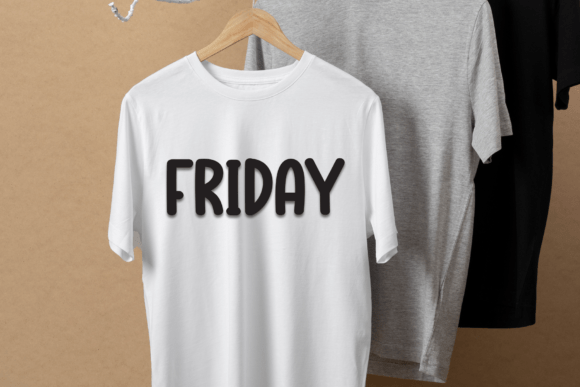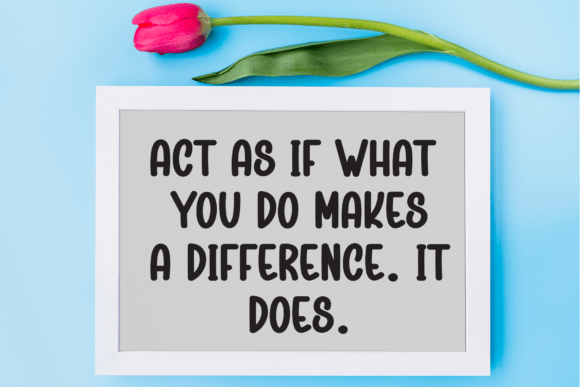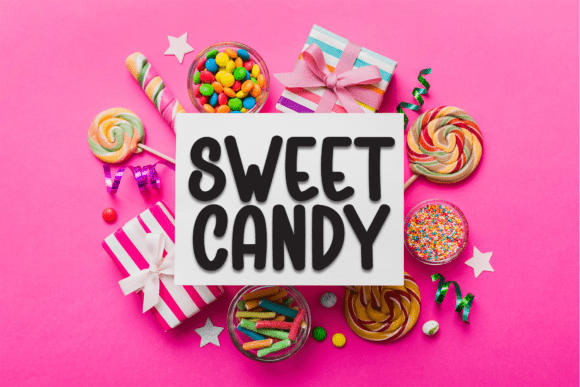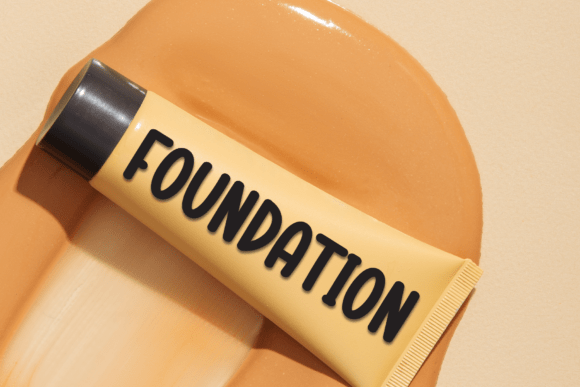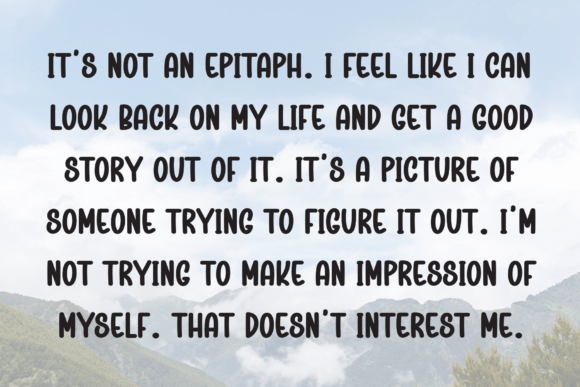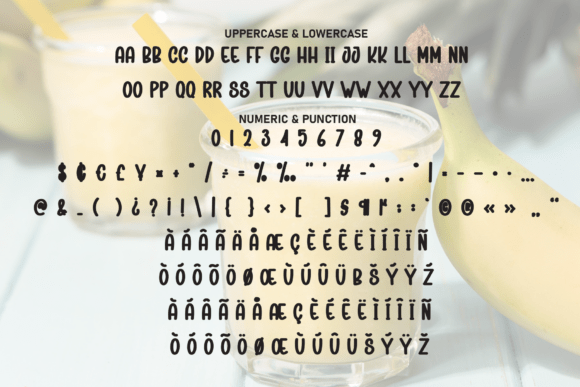
Introducing Banana Juice Font: The Perfect Blend of Warmth and Clarity
Are you tired of using fonts that are too formal or too bland? Look no further than Banana Juice Font, a casual and neat display font designed to bring warmth and clarity to your projects. With its clean structure and approachable style, Banana Juice Font is perfect for branding, headlines, and everyday designs that require a touch of personality.
The Design Behind Banana Juice Font
Banana Juice Font boasts a balanced and harmonious design, with letterforms that are carefully crafted to offer exceptional readability and charm. The font’s clean structure and simple lines make it easy to read, while its approachable style adds a touch of warmth and friendliness to any design. Whether you’re working on a branding project, a website, or a social media graphic, Banana Juice Font is the perfect choice for designers and crafters looking to add a personal touch to their work.
What Makes Banana Juice Font Stand Out
So, what sets Banana Juice Font apart from other display fonts on the market? Here are just a few features that make it a standout choice for designers and crafters:
- Clean and Simple Design: Banana Juice Font features a clean and simple design that makes it easy to read and understand. The font’s straightforward lines and balanced letterforms ensure that your message is conveyed clearly and effectively.
- Approachable Style: The font’s approachable style adds a touch of warmth and friendliness to any design. Whether you’re working on a branding project or a social media graphic, Banana Juice Font helps to create a sense of connection with your audience.
- Exceptional Readability: Banana Juice Font is designed to be highly readable, even at small sizes. This makes it perfect for use in a variety of applications, from website headers to social media graphics.
- Versatility: Banana Juice Font is a versatile font that can be used in a wide range of design applications, from branding and advertising to packaging and web design.
How to Use Banana Juice Font in Your Designs
Banana Juice Font is easy to use and can be incorporated into a wide range of design projects. Here are just a few ideas to get you started:
- Branding and Logos: Use Banana Juice Font to create a warm and inviting brand identity that resonates with your target audience.
- Headlines and Titles: Add a touch of personality to your headlines and titles with Banana Juice Font’s clean and simple design.
- Social Media Graphics: Use Banana Juice Font to create eye-catching social media graphics that grab attention and encourage engagement.
- Web Design: Incorporate Banana Juice Font into your web design to create a warm and welcoming online presence.
Why Designers and Crafters Love Banana Juice Font
Designers and crafters love Banana Juice Font for its unique blend of warmth, clarity, and versatility. Here are just a few reasons why:
- Easy to Read: Banana Juice Font is highly readable, even at small sizes, making it perfect for use in a wide range of design applications.
- Visually Appealing: The font’s clean structure and approachable style make it visually appealing and engaging.
- Flexible: Banana Juice Font can be used in a wide range of design applications, from branding and advertising to packaging and web design.
- Unique: Banana Juice Font offers a unique and distinctive look that sets it apart from other display fonts on the market.
In conclusion, Banana Juice Font is a casual and neat display font that is perfect for designers and crafters looking to add a touch of warmth and clarity to their projects. With its clean structure, approachable style, and exceptional readability, Banana Juice Font is a versatile font that can be used in a wide range of design applications. Whether you’re working on a branding project, a website, or a social media graphic, Banana Juice Font is the perfect choice for anyone looking to create a warm and inviting design that resonates with their target audience.